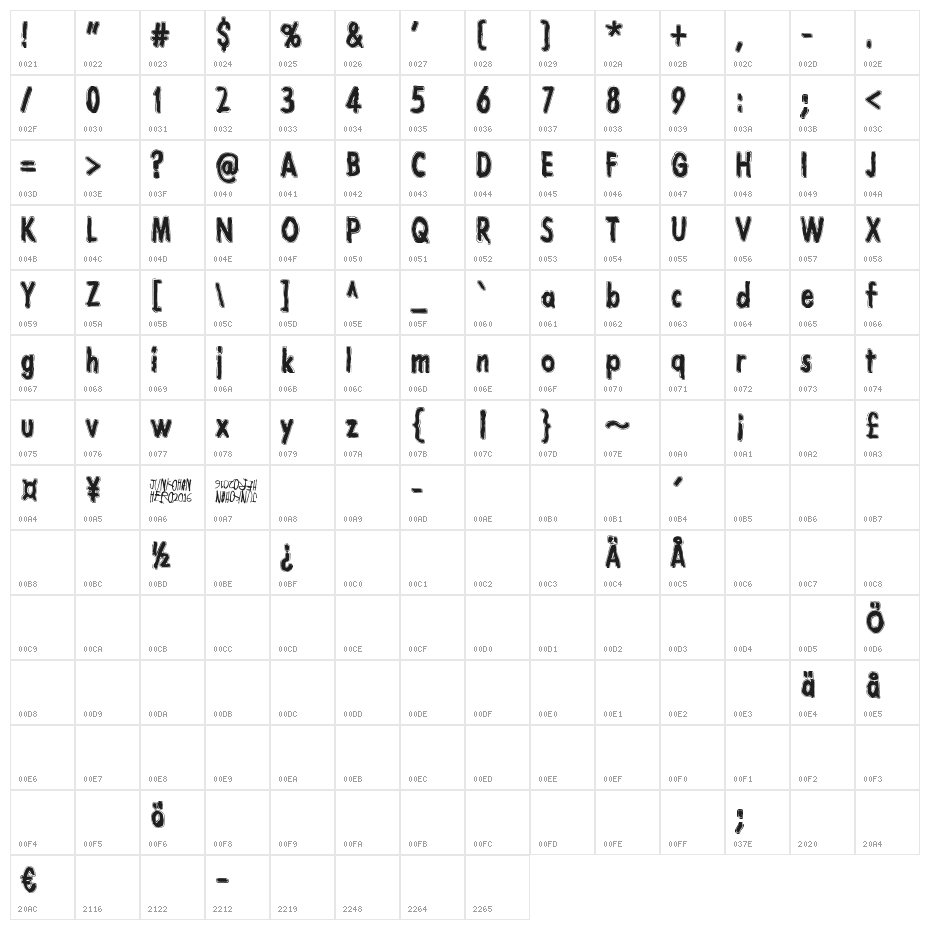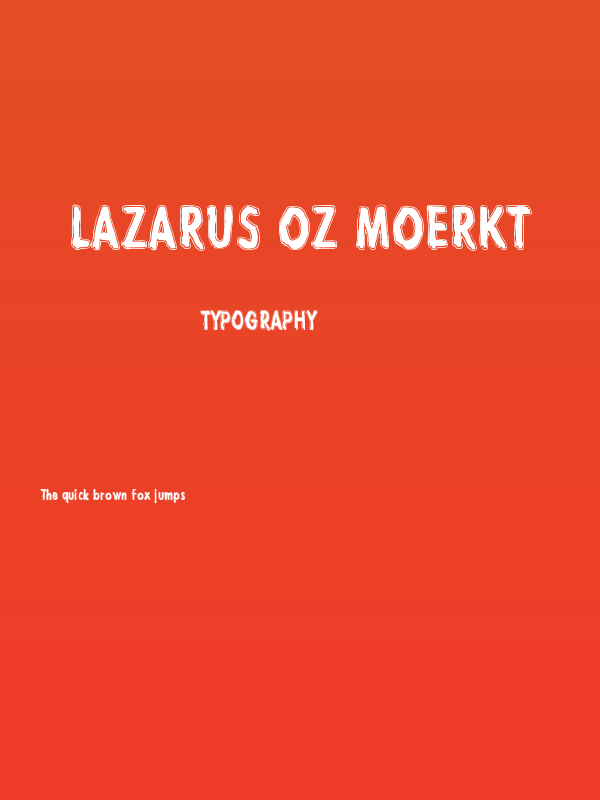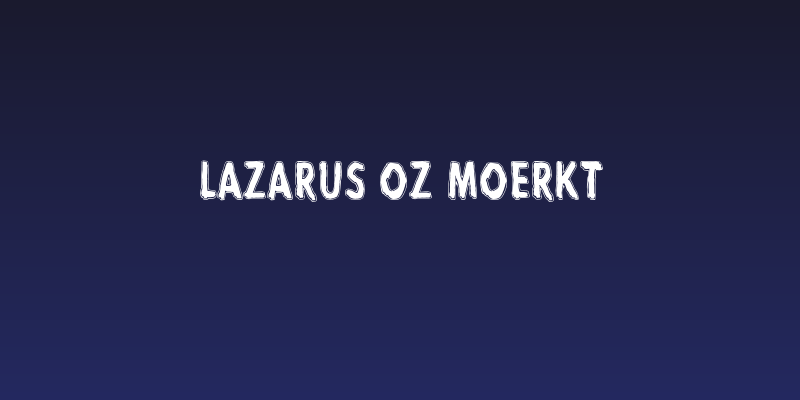
Lazarus Oz Moerkt Font
Lazarus Oz Moerkt Description
This font features a bold and playful design with a hand-drawn appearance. The characters have a thick outline and a slightly irregular shape, giving them a casual and artistic feel. The uppercase and lowercase letters maintain a consistent style, while the numbers and special characters complement the overall look. The font's unique style makes it stand out, with each character having a distinct personality. The boldness of the strokes and the uneven edges contribute to its informal and creative vibe, making it suitable for projects that require a touch of whimsy and originality.
| Overall Style | Playful, Artistic |
| Use Case | Headlines, Posters, Creative Branding |
| Proposed Projects | Ideal for children's books, creative posters, playful branding, and artistic projects. |